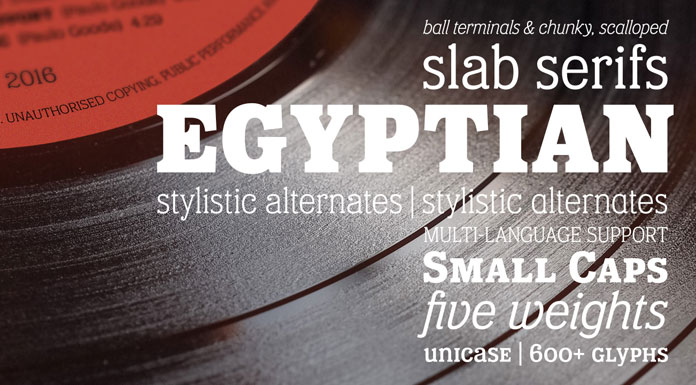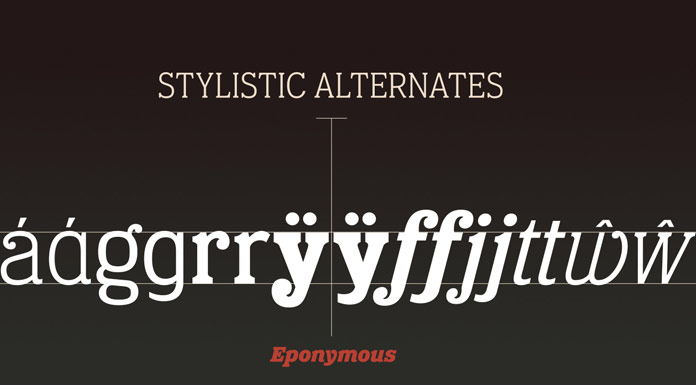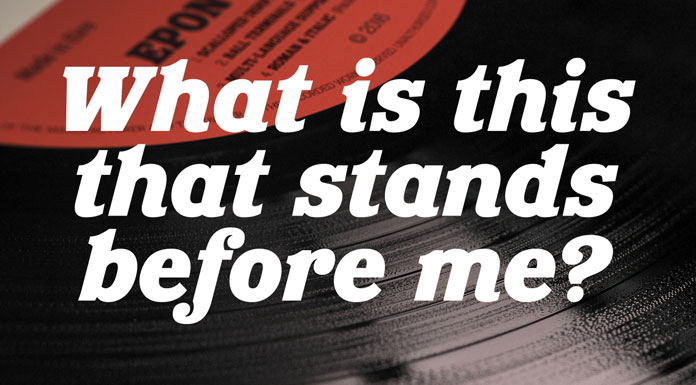
Eponymous, an Egyptian-style typeface with chunky, scalloped serifs.
The Eponymous font family is Paulo Goode’s fifth release. Driven by his passion for slab serifs, the Irish type designer wanted to develop a family that combines the classic look of an Egyptian-style typeface with the demands of today’s fonts. The result is an excellent font family based on chunky, scalloped serifs. Eponymous comes in 5 weights plus true italics for each weight. The family’s distinctive personality is a striking eye-catcher in both headlines and texts. You can read more about this outstanding font family below the first image or feel free and click on the following link.
Paulo Goode has also equipped this family with plenty of OpenType features. Make use of them and implement some stylistic alternates to give your typographic work a more personal touch. You can also mix your characters with the set of small caps to create some interesting effects. With complementing diacritics and multi-language support, the Eponymous font family has been designed for professional needs.
Here is a list of the key features:
- The family includes 5 weights (Light, Regular, Medium, Bold, Black) plus true Italics
- OpenType features with small caps, diacritics, figures, and alternate characters
- An extended character set with 600 glyphs that support multiple languages